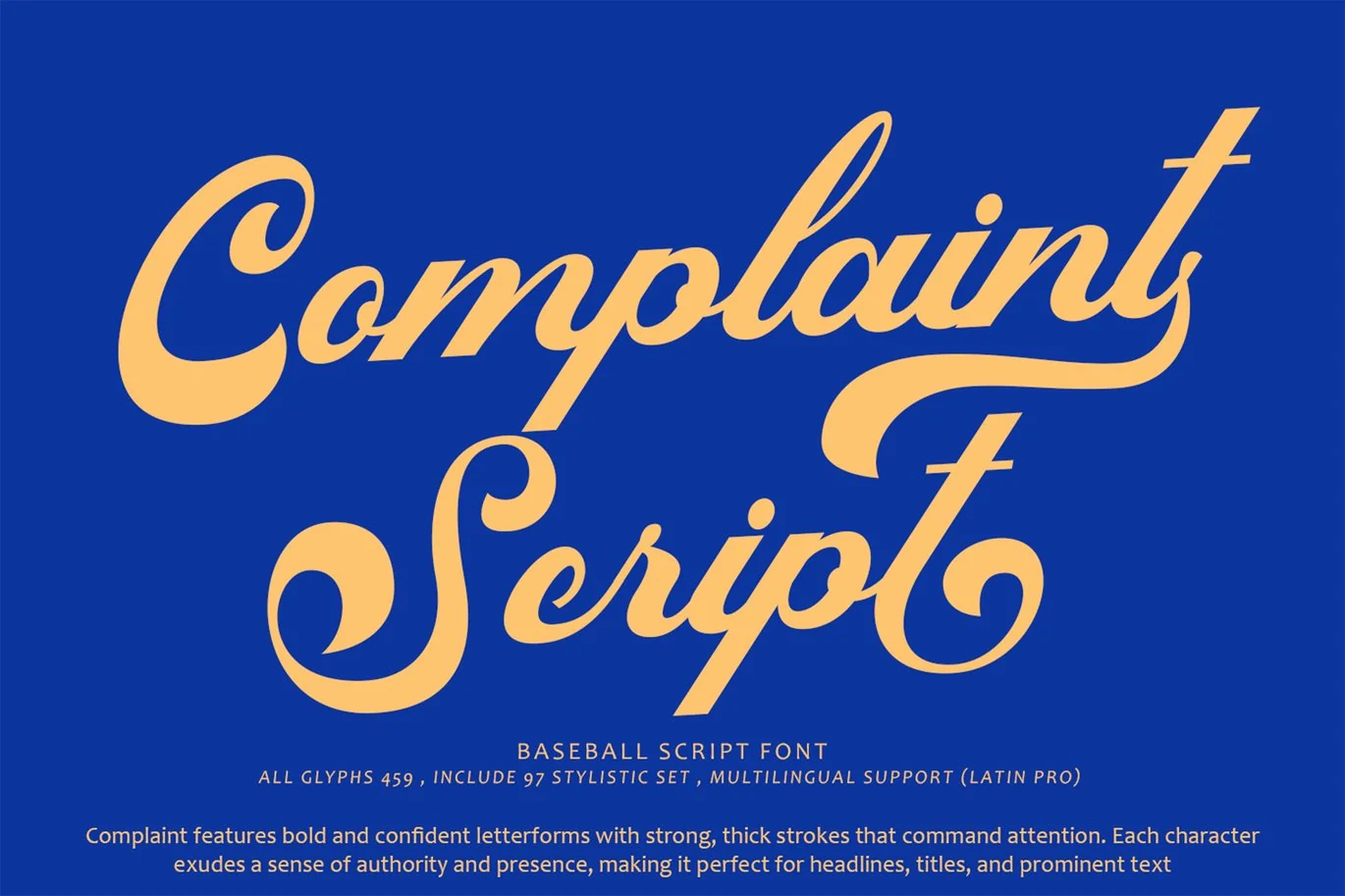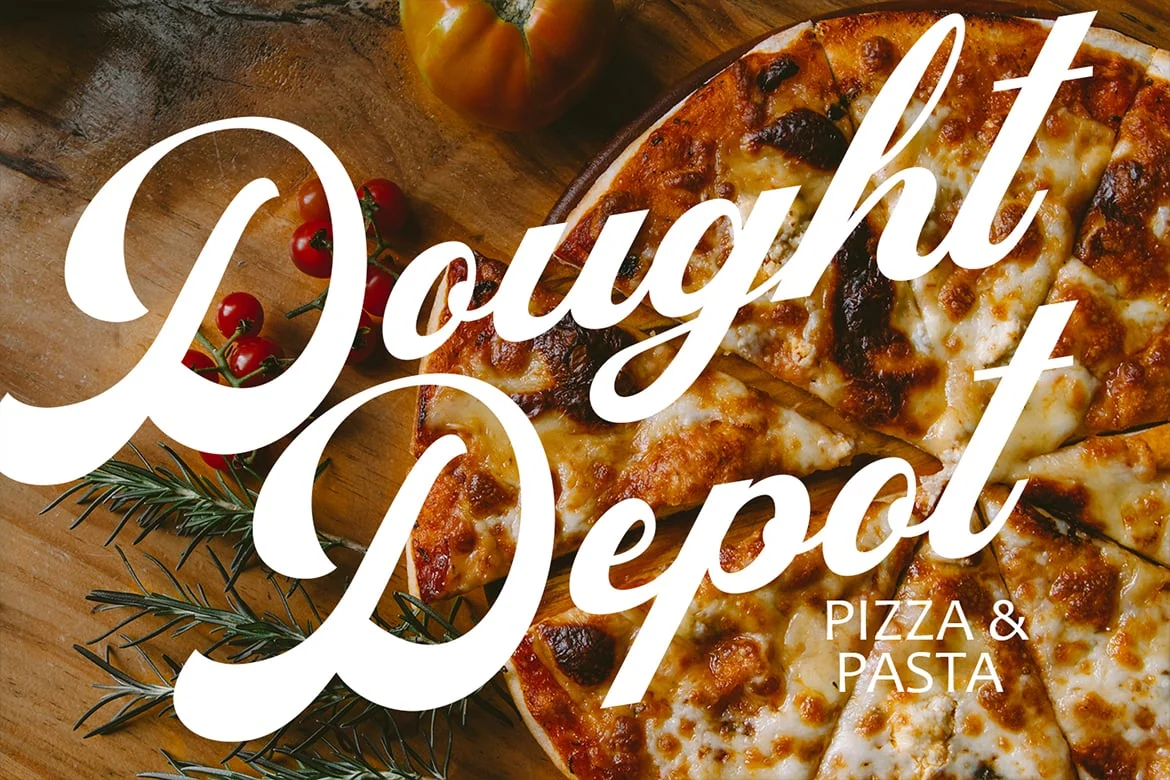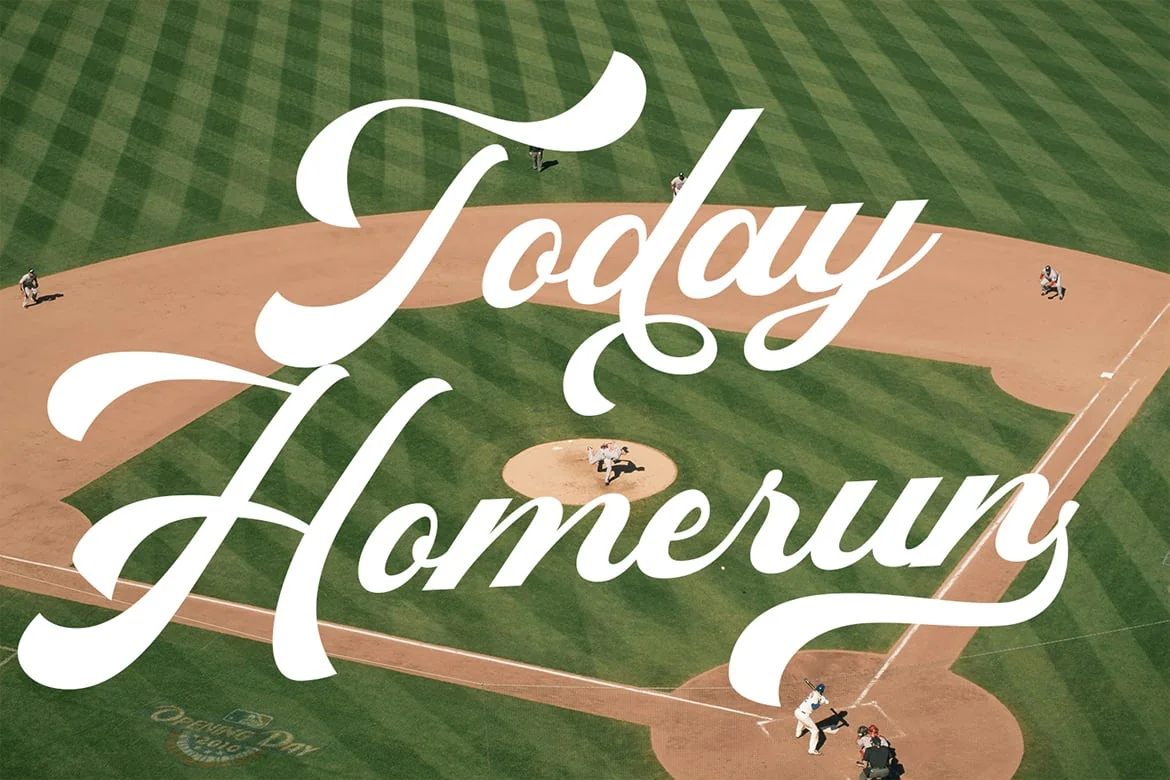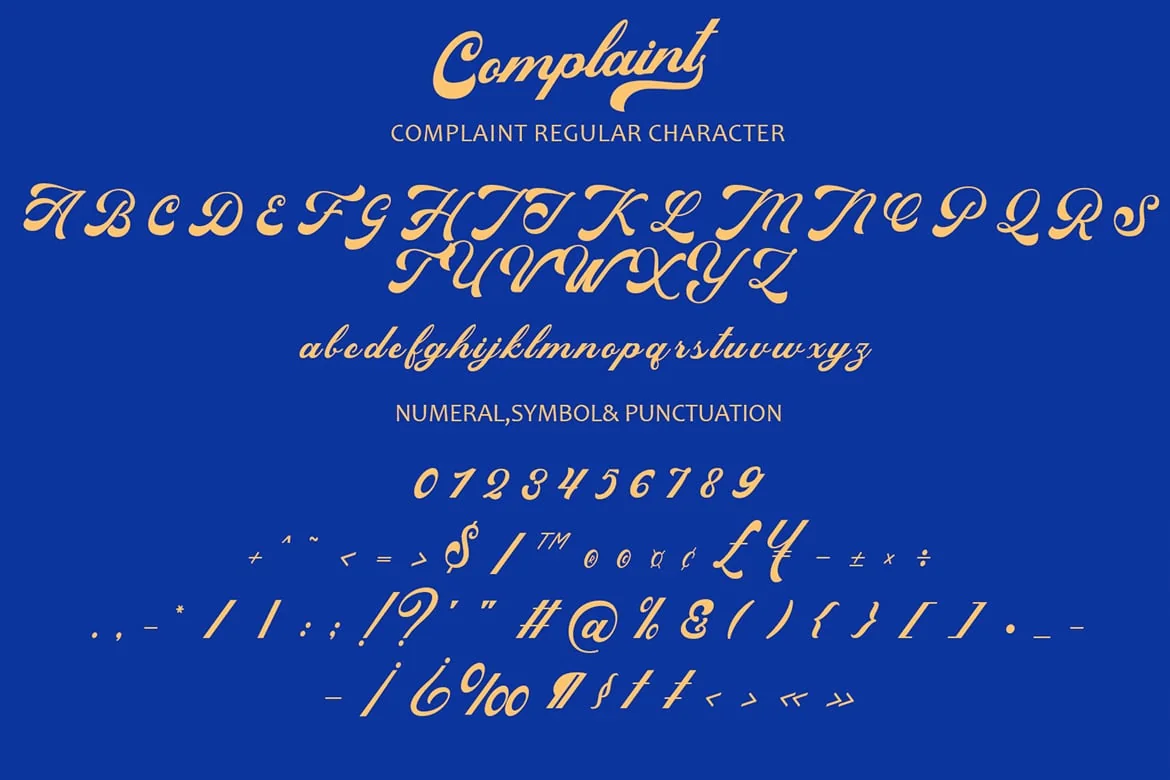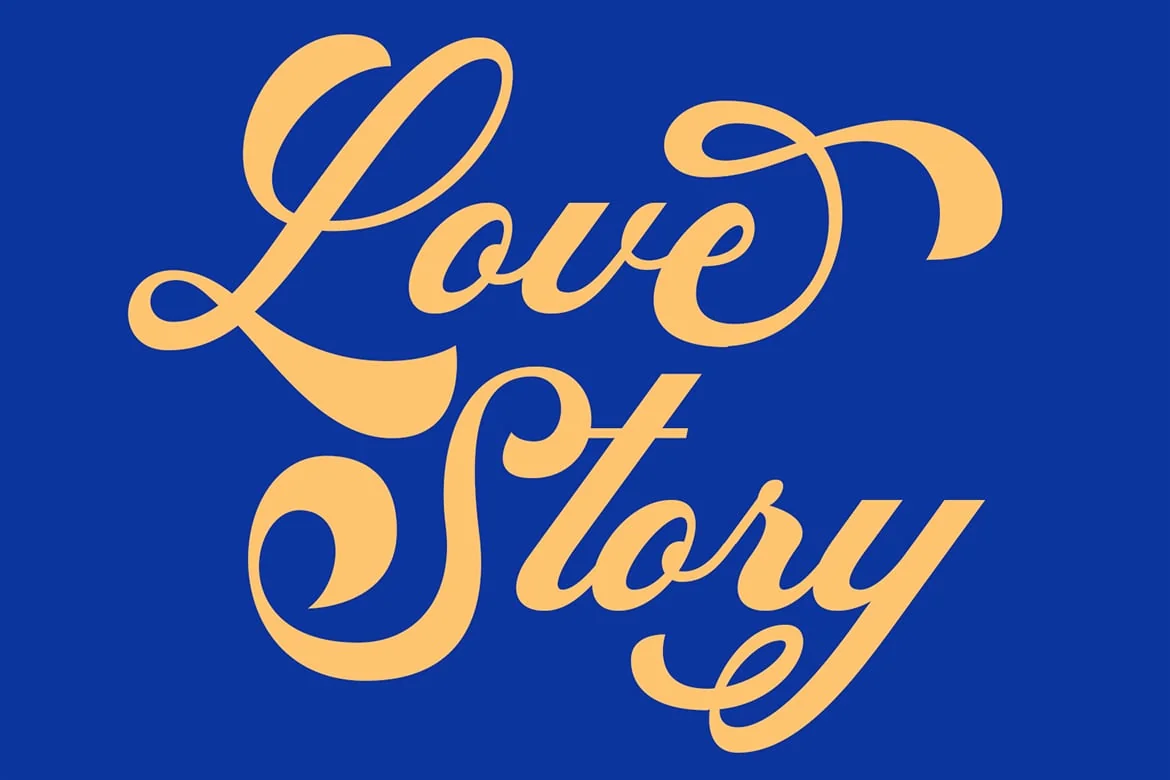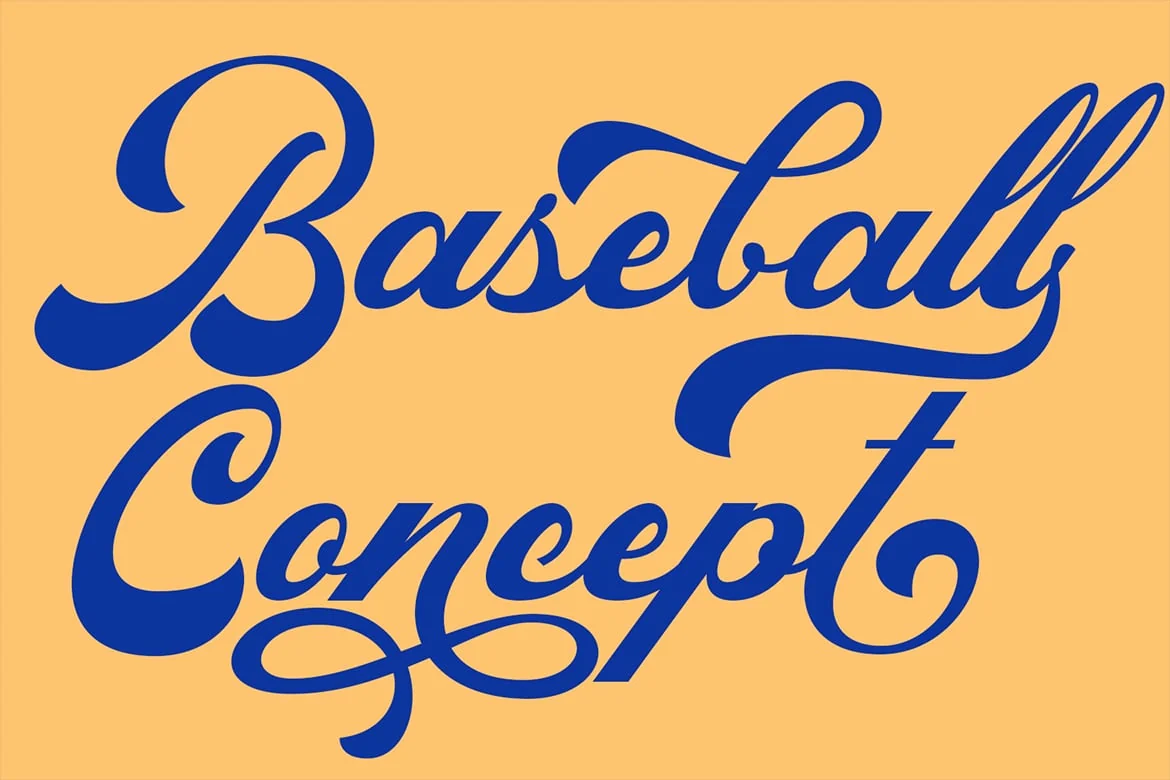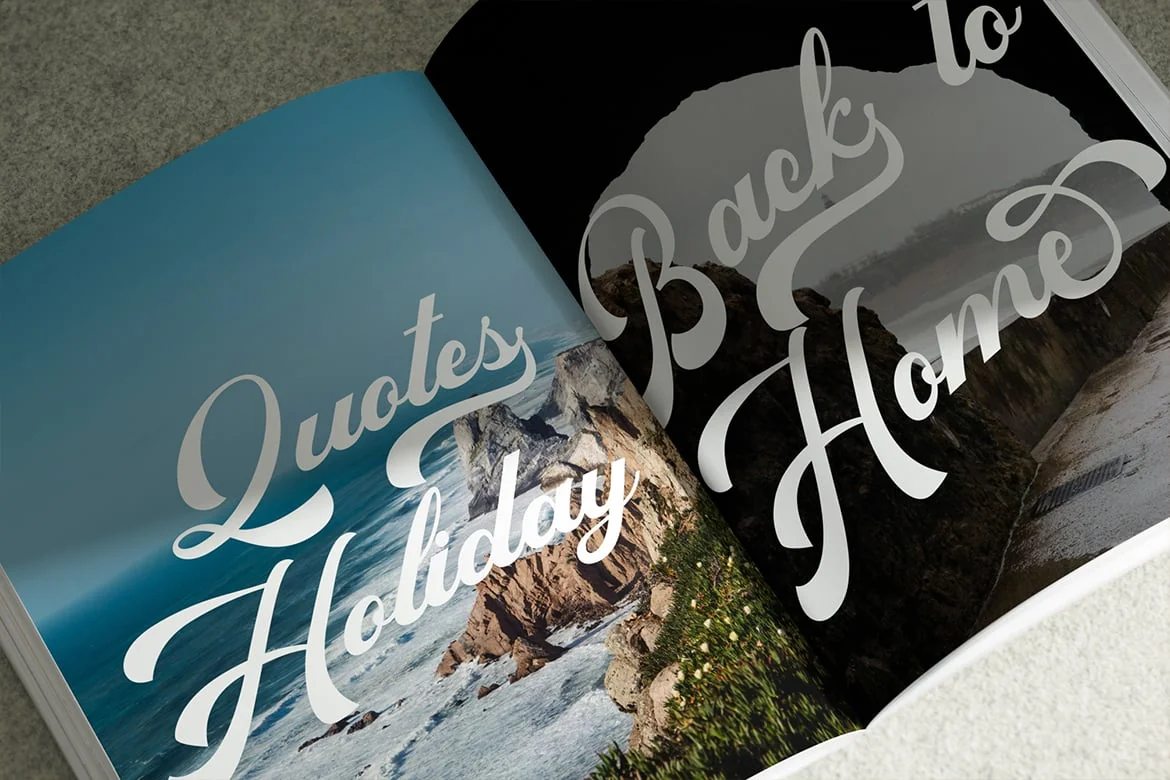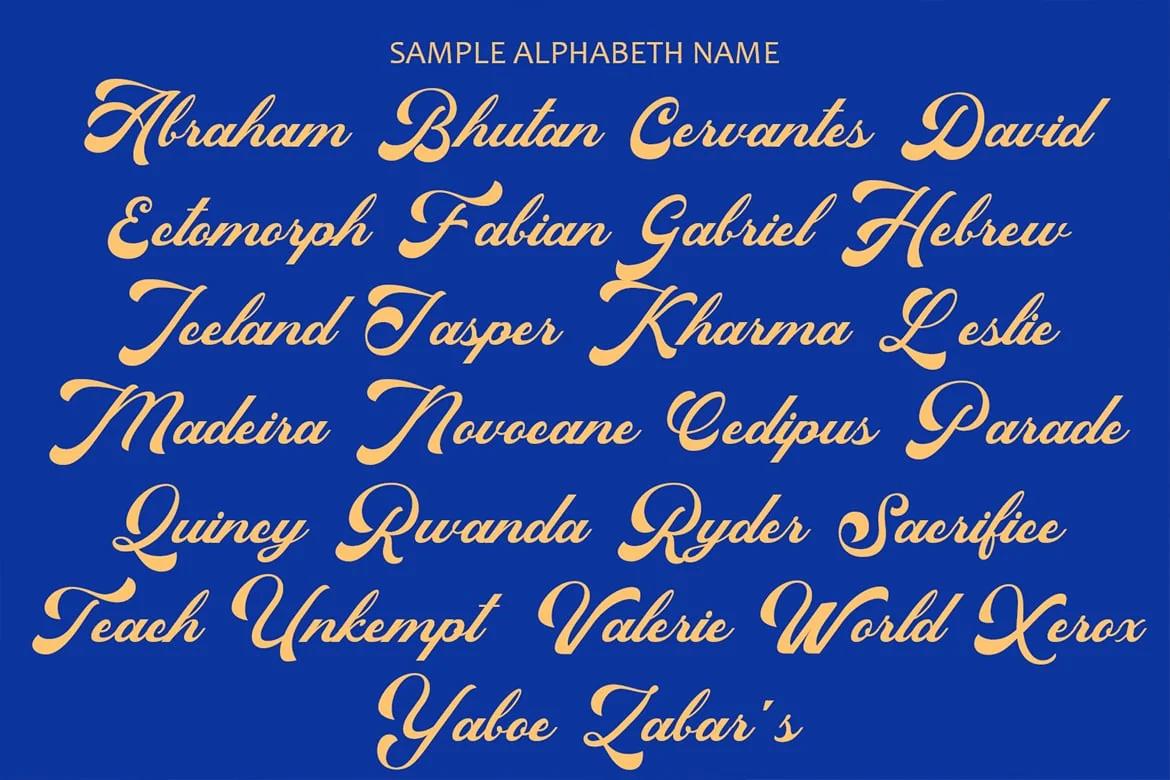
Complaint Bold Script Font
Complaint bold script font is a striking and assertive typeface designed to make a bold statement. Here’s an explanation of its key features:
Assertive Letterforms: “Complaint” features bold and confident letterforms with strong, thick strokes that command attention. Each character exudes a sense of authority and presence, making it perfect for headlines, titles, and prominent text.
Dynamic Contrast: The contrast between thick and thin strokes in “Complaint” adds visual interest and creates a sense of dynamism. The bold strokes stand out against the page, making the text easy to read and ensuring maximum impact.
Expressive Typography: Despite its bold appearance, “Complaint” retains a sense of expressiveness and personality. The flowing curves and subtle details in each letterform add a touch of elegance and sophistication to the font’s overall aesthetic.
Versatility: While “Complaint” is well-suited for bold headlines and eye-catching designs, it is also versatile enough to be used in a variety of contexts. It can be employed in branding, packaging, advertising, and more, adding a sense of strength and confidence to any project.
Readability: Despite its boldness, “Complaint” maintains readability, ensuring that text remains legible even at smaller sizes. Each character is carefully crafted to strike a balance between visual impact and clarity, making it suitable for a wide range of applications.
Distinctive Style: “Complaint” boasts a distinctive style that sets it apart from other bold script fonts. Its bold letterforms and assertive presence make it a memorable choice for designers looking to make a strong impression with their typography.
Overall, the “Complaint” bold script font is a powerful and versatile typeface that commands attention and exudes confidence. Its assertive letterforms, dynamic contrast, expressive typography, versatility, readability, and distinctive style make it a standout choice for designers seeking to make a bold statement in their designs.